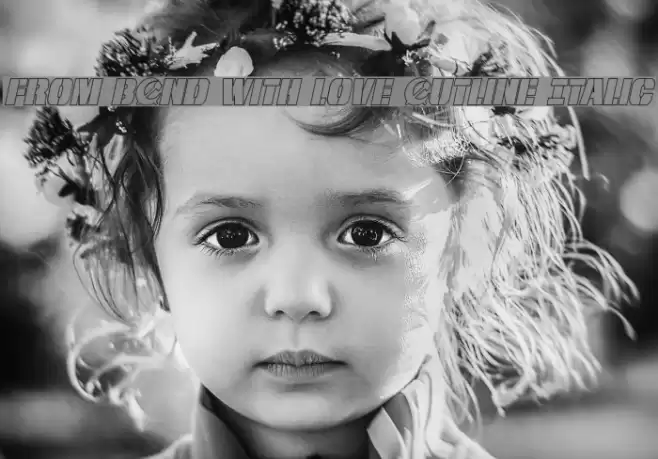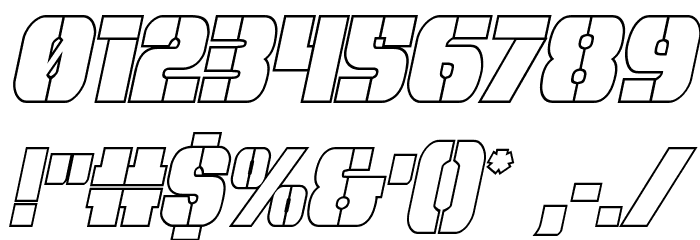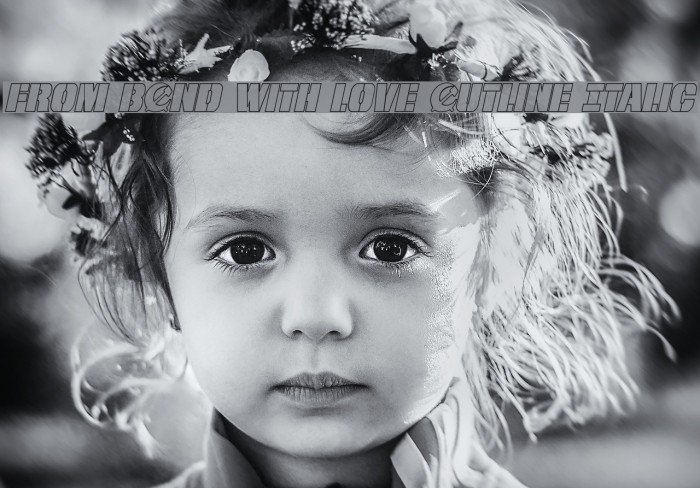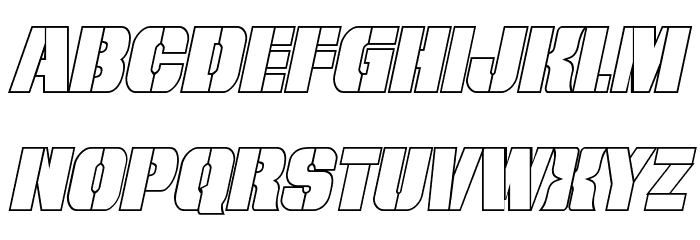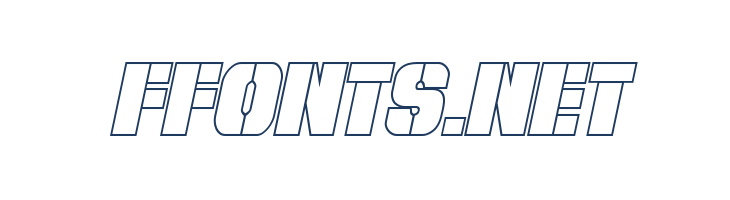
From BOND With Love Outline Italic Font
From BOND With Love Outline Italic Description
This font features a bold, italicized style with an outline effect, giving it a striking and dynamic appearance. The characters are designed with a strong geometric structure, emphasizing sharp angles and clean lines. The uppercase and lowercase letters maintain a consistent width, contributing to a uniform look across the text. The numbers and special characters are crafted with the same bold outline, ensuring cohesion throughout. This font's design is modern and eye-catching, making it suitable for projects that require a bold statement.
Bold, italicized outline font with a geometric, modern style from Uncategorized fonts.
- Proposed Projects: Ideal for headlines, posters, branding, and any design that requires a bold, attention-grabbing font.